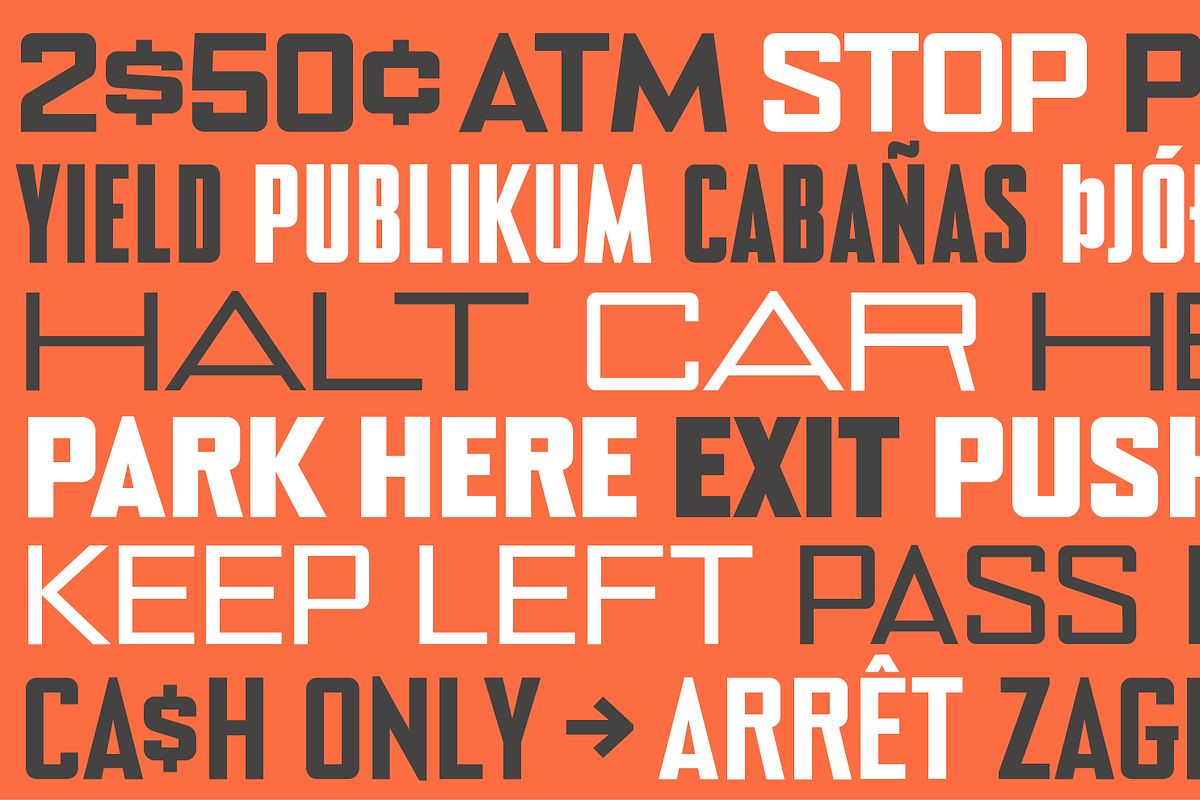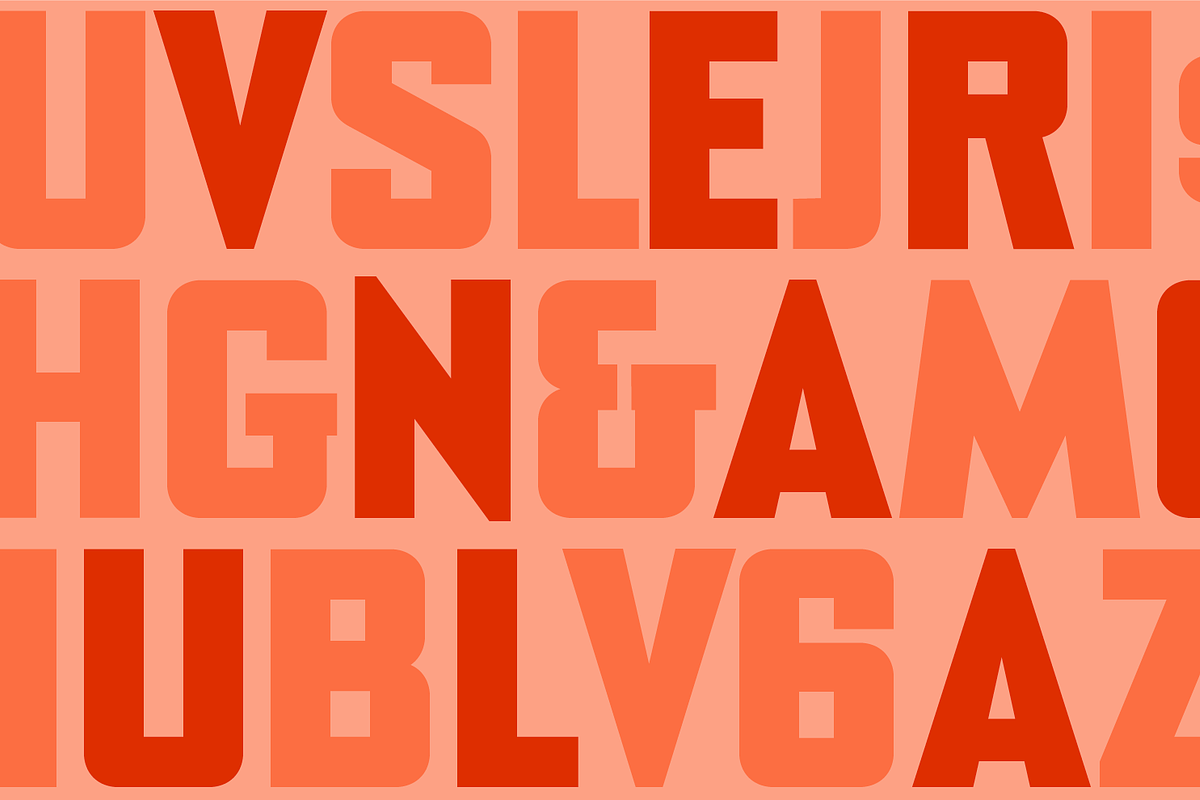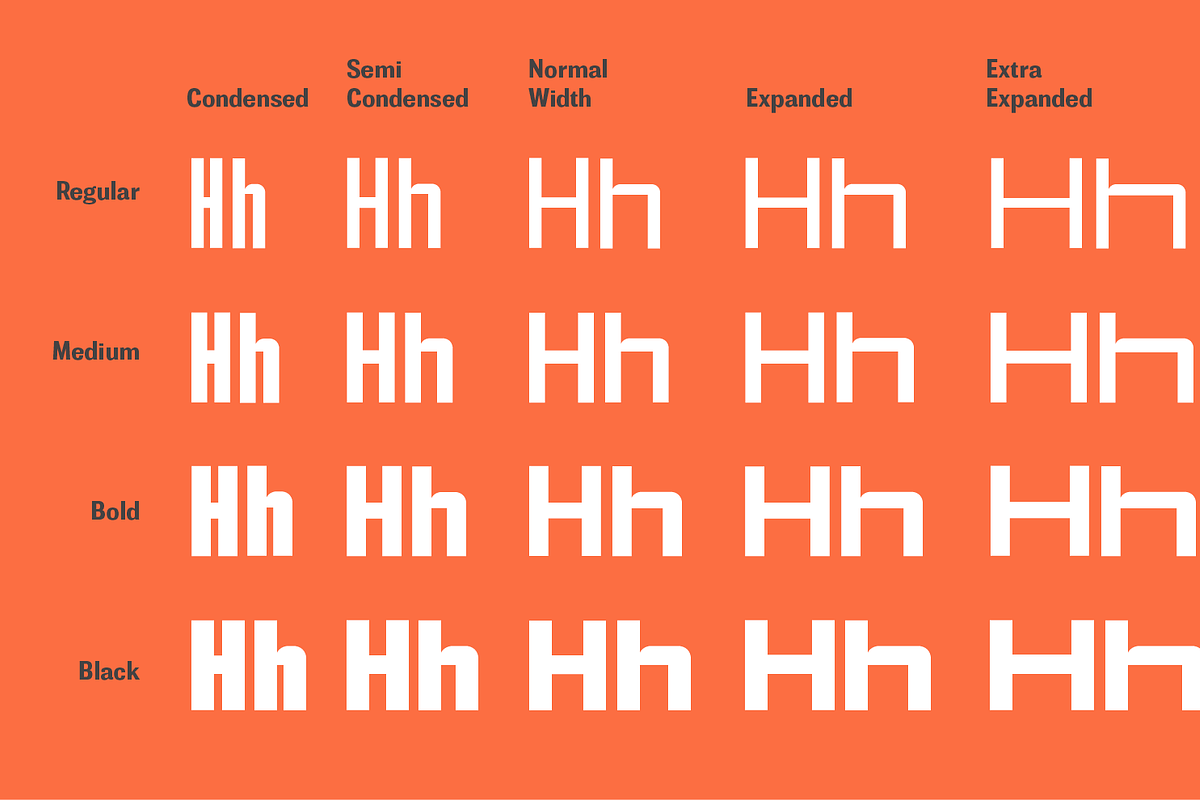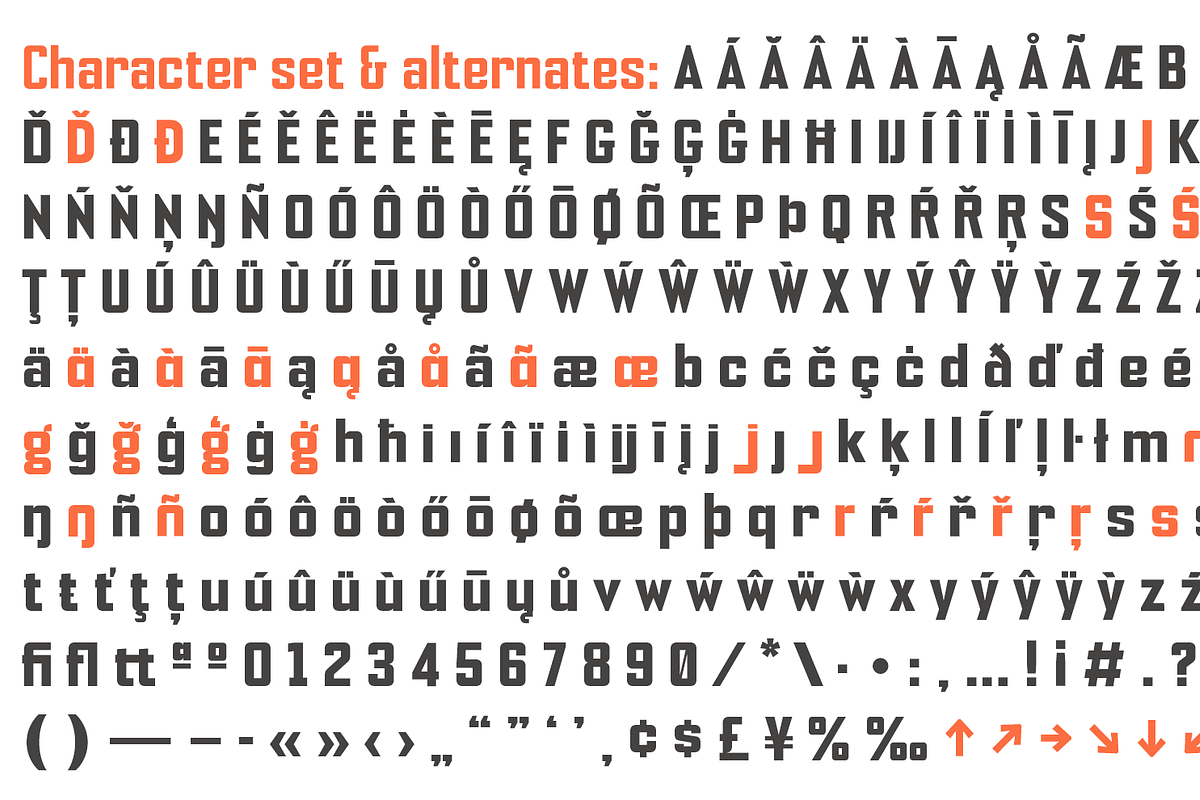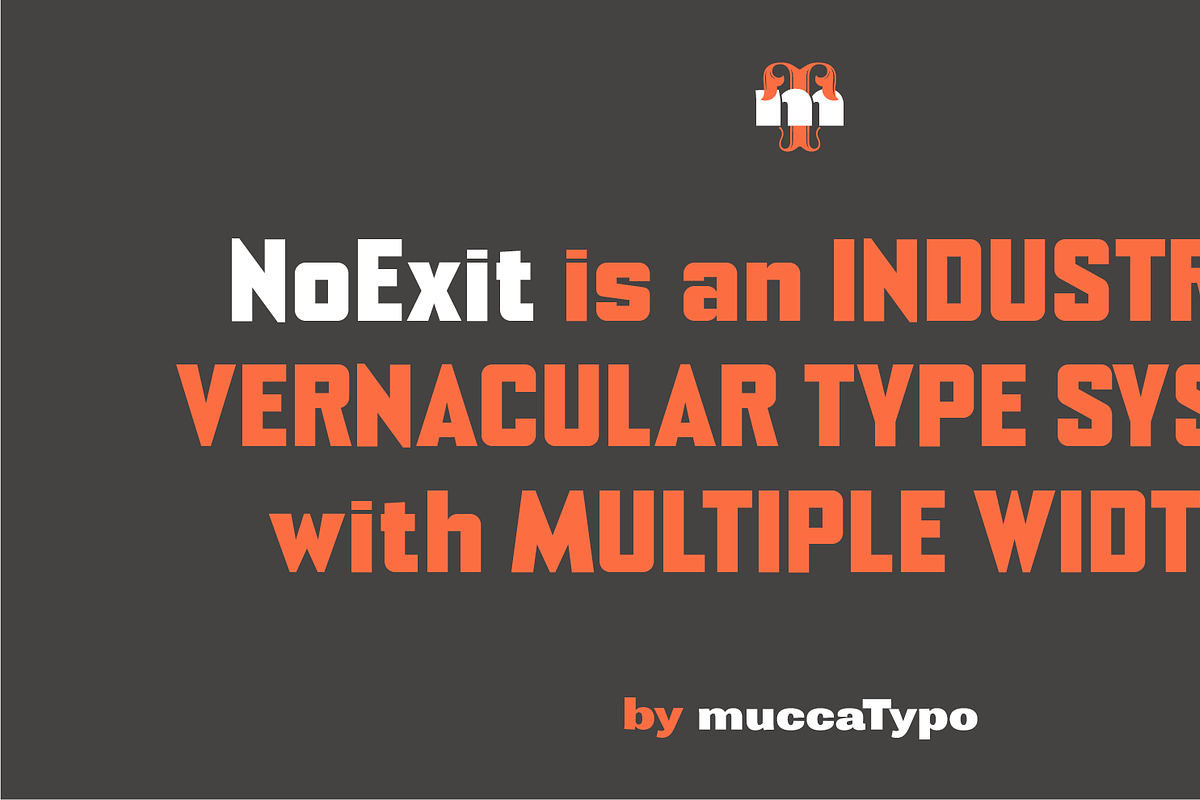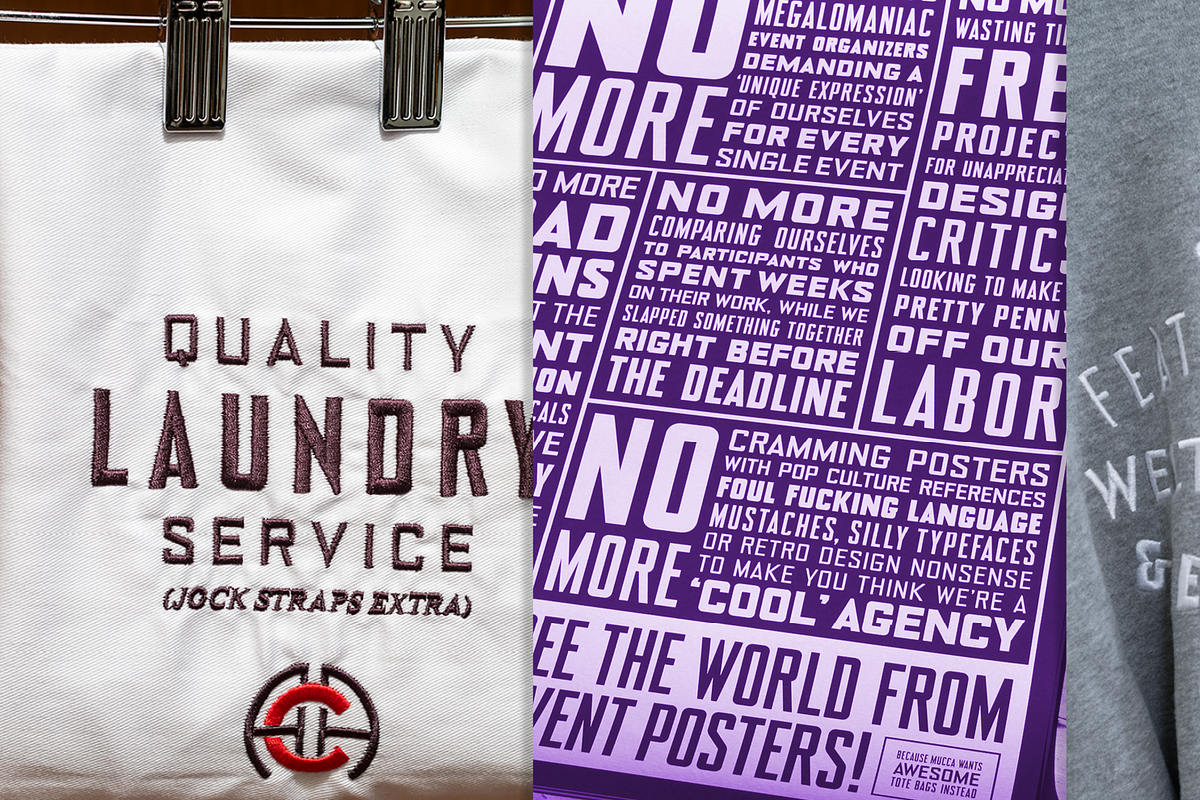
Noexit
NoExit is a sans serif font designed with an industrial aesthetic. It features multiple widths, making it versatile for various headline and branding applications.